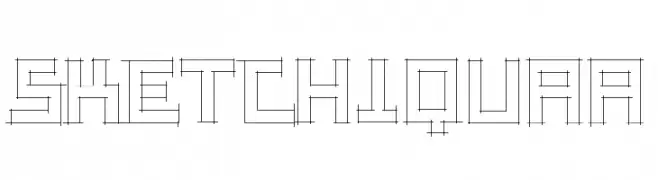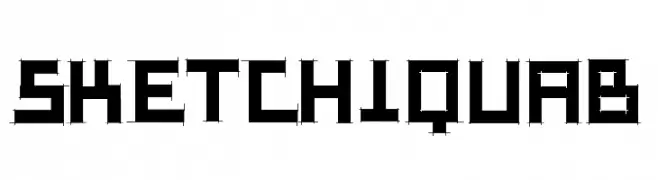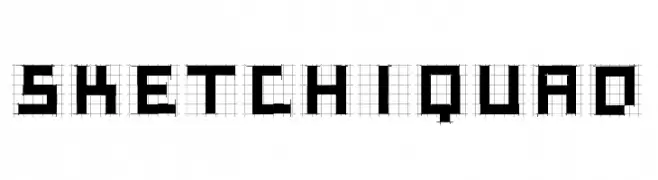
A geometric, structured font with a mechanical and architectural feel.
A pixelated, grid-based font with a retro digital aesthetic.
A bold, geometric font with sharp, angular edges and a modern aesthetic.